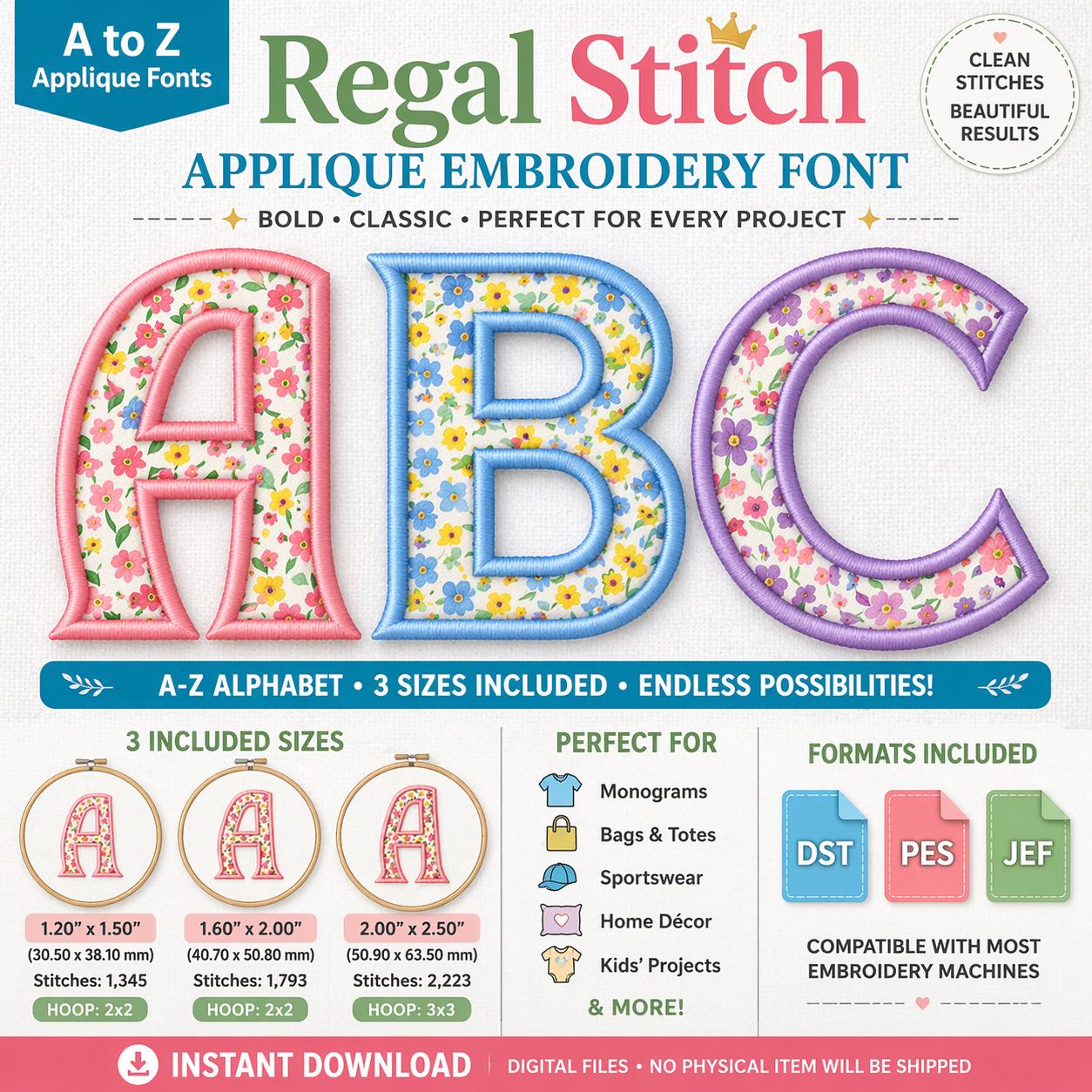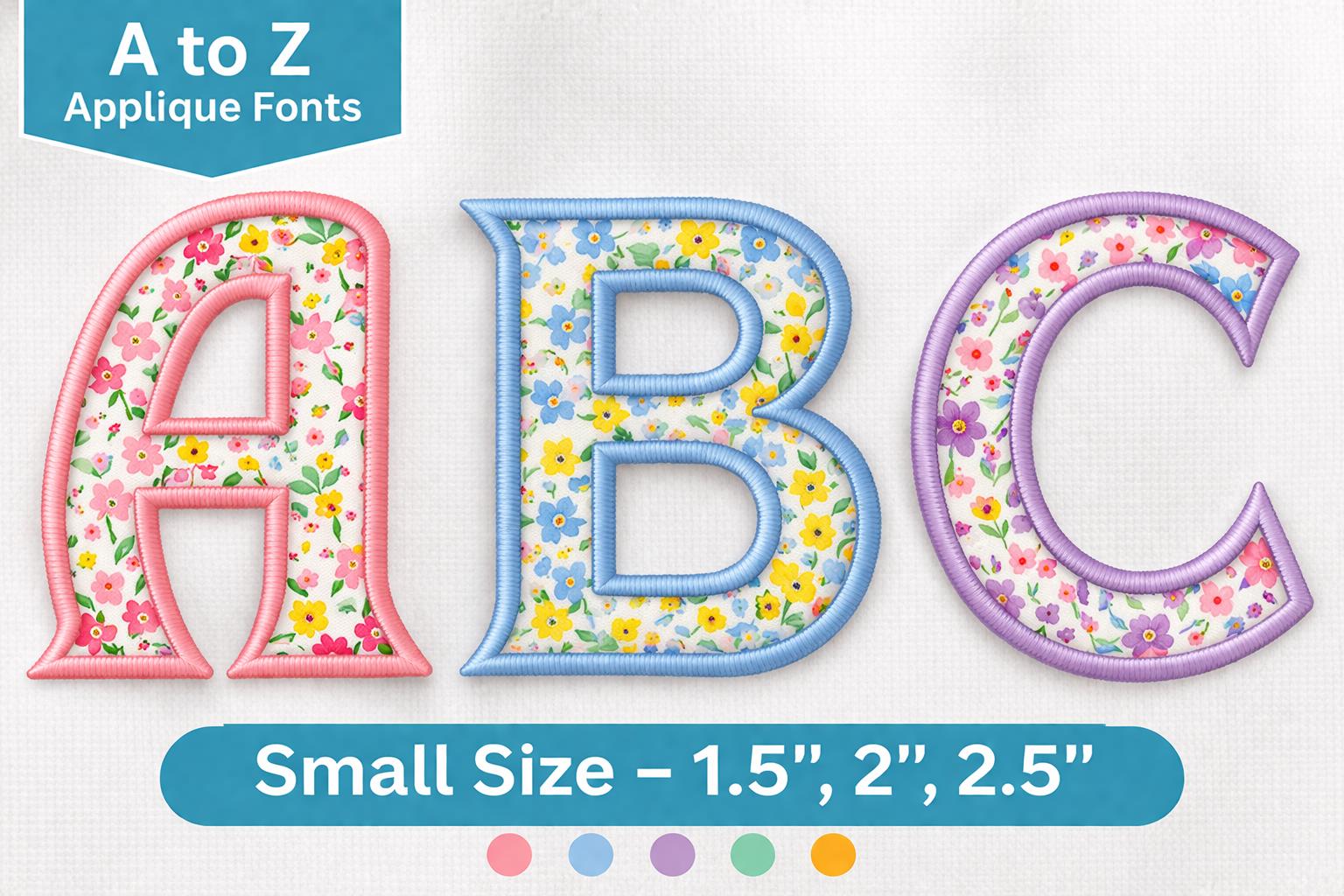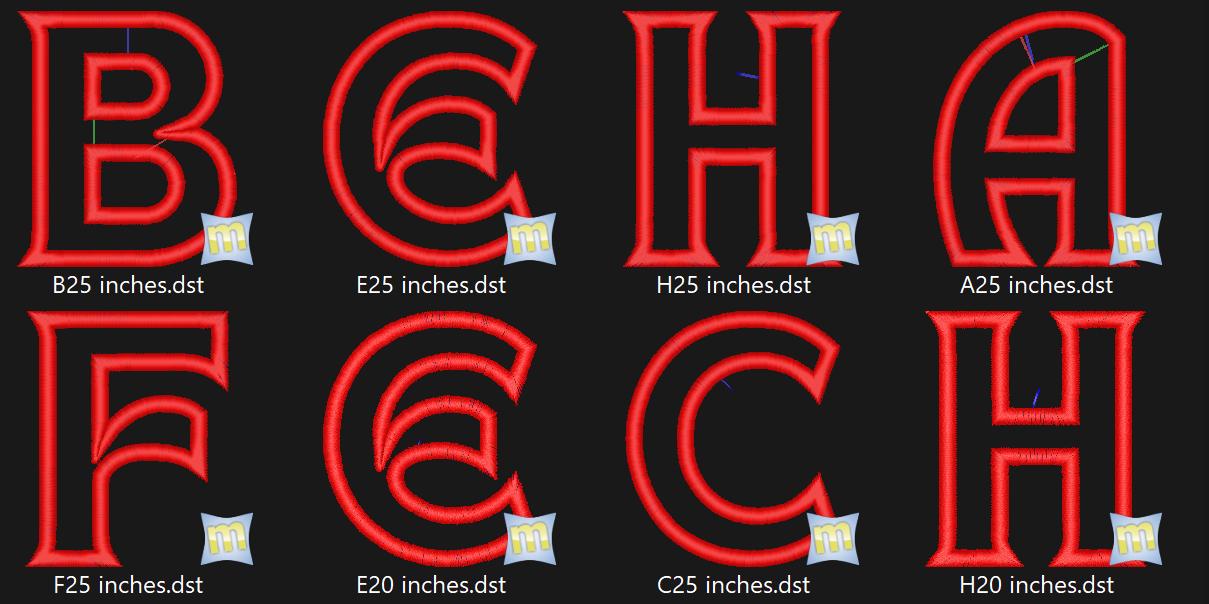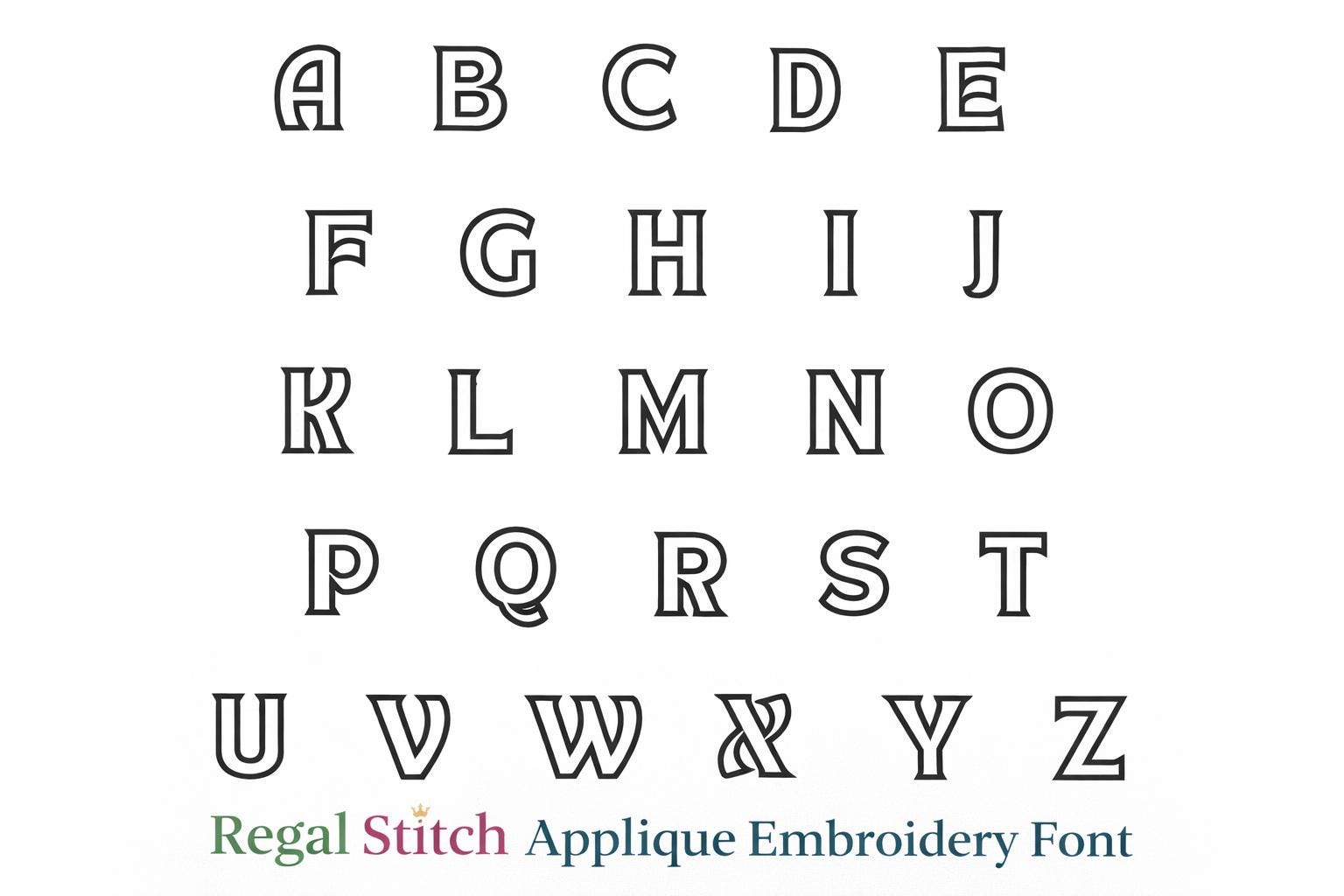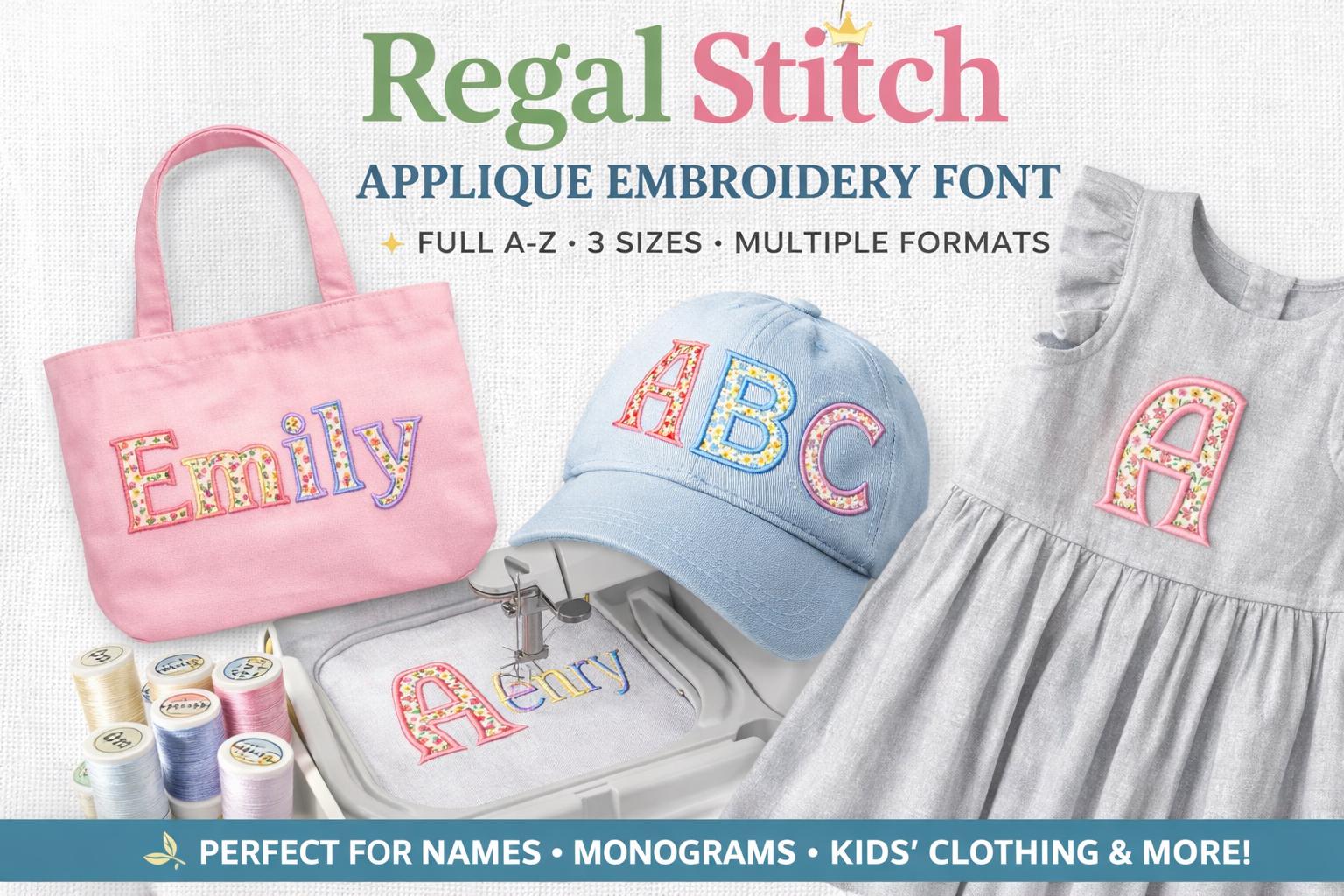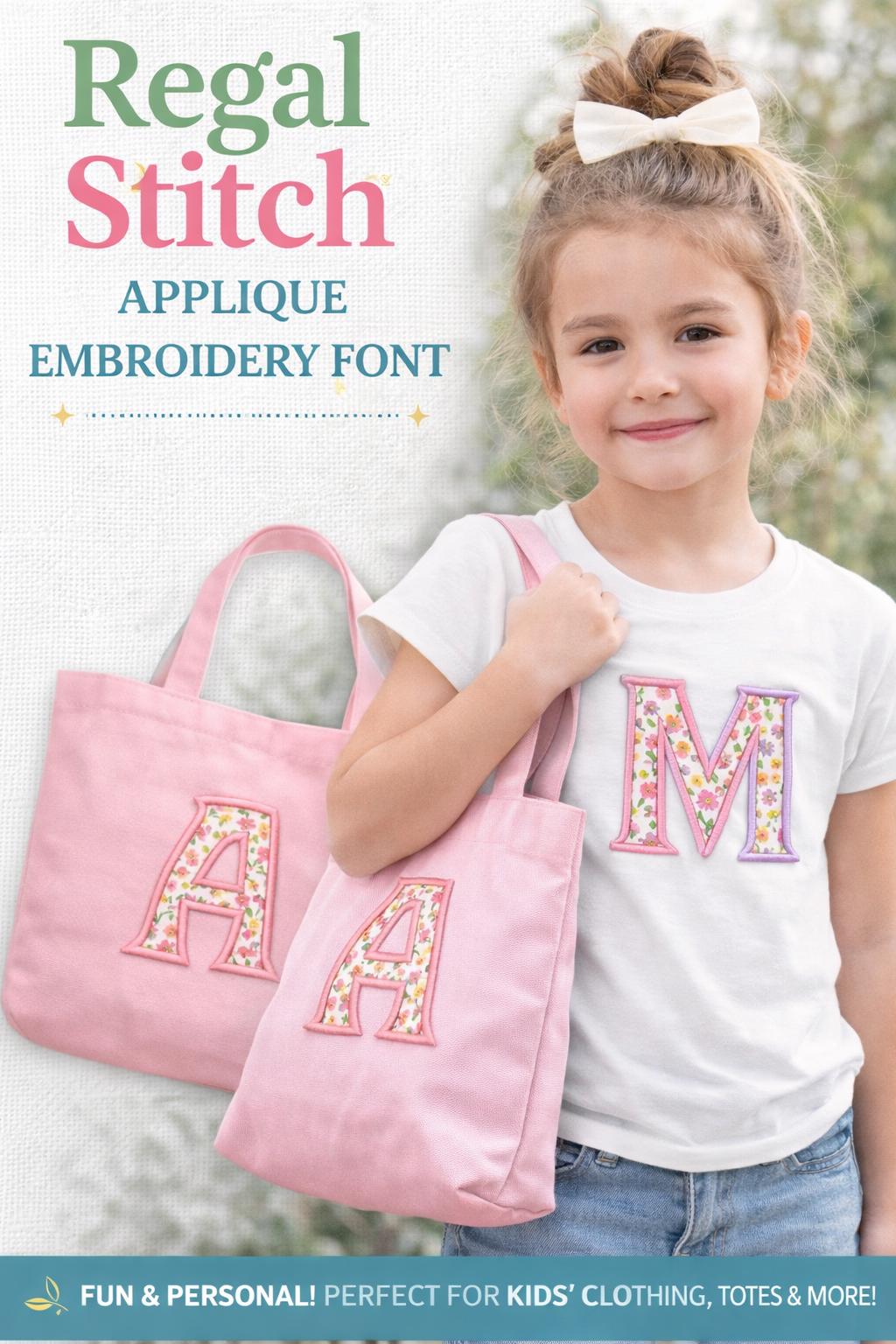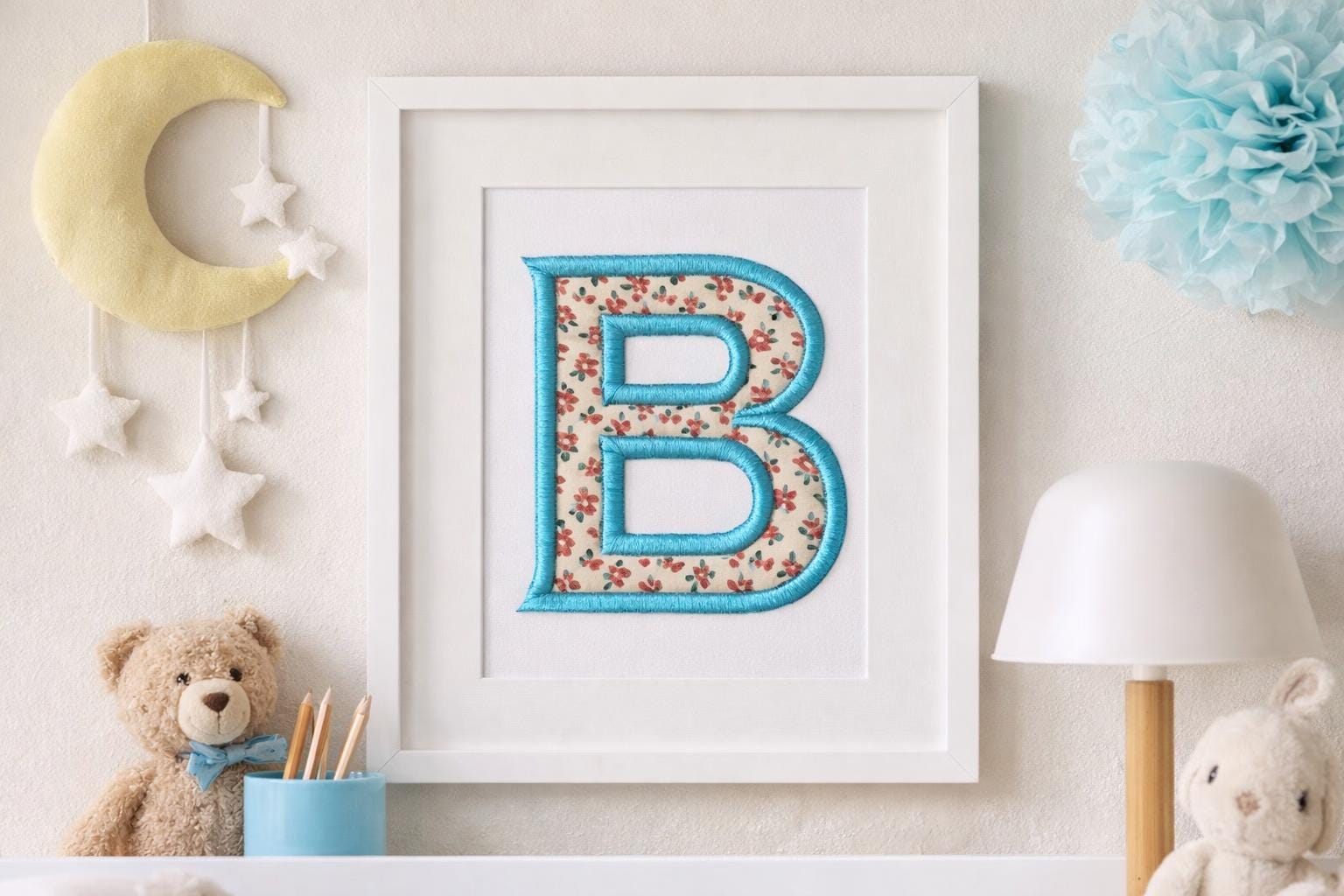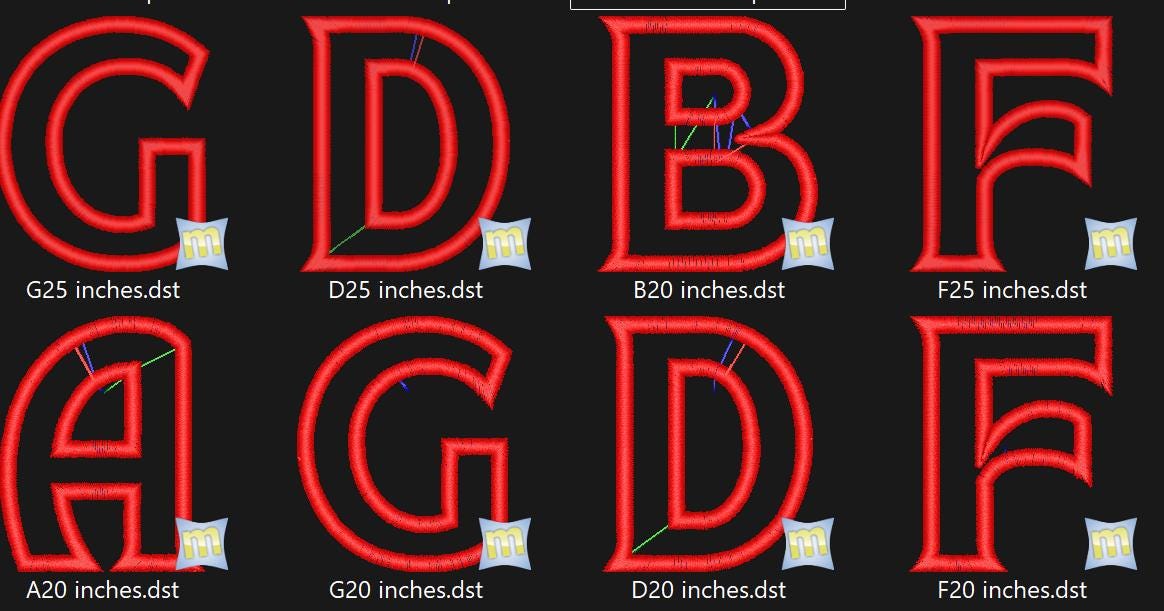
Create stunning embroidered names, monograms, and custom designs with this elegant Regal Stitch Applique Embroidery Font. This complete alphabet set includes A–Z capital letters, beautifully digitized for clean, professional stitching.
Perfect for adding a bold, handmade touch to your embroidery projects!
Perfect For:
Monograms & names
Kids clothing & accessories
Bags & tote designs
Sportswear personalization
Home décor projects
️ Clean applique-style stitching
️ Professionally digitized for smooth results
Why You’ll Love It
Classic, versatile applique style
Multiple sizes for flexibility
Clean, professional stitch results